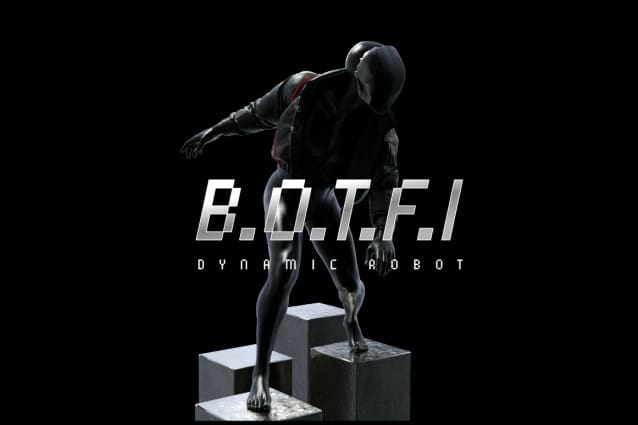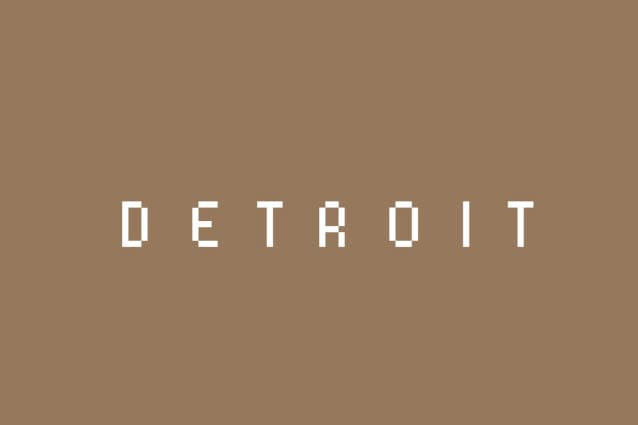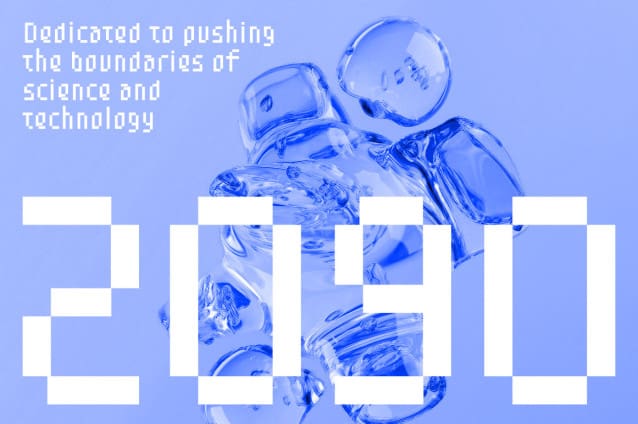
Speed Pixel Font
Speed Pixel Font a Quirky Display Speed Font that encapsulates the essence of speed, agility, and dynamism. Crafted meticulously to resonate with the fast-paced world of racing and e-sports, this font is a harmonious blend of pixel perfection and artistic craftsmanship.